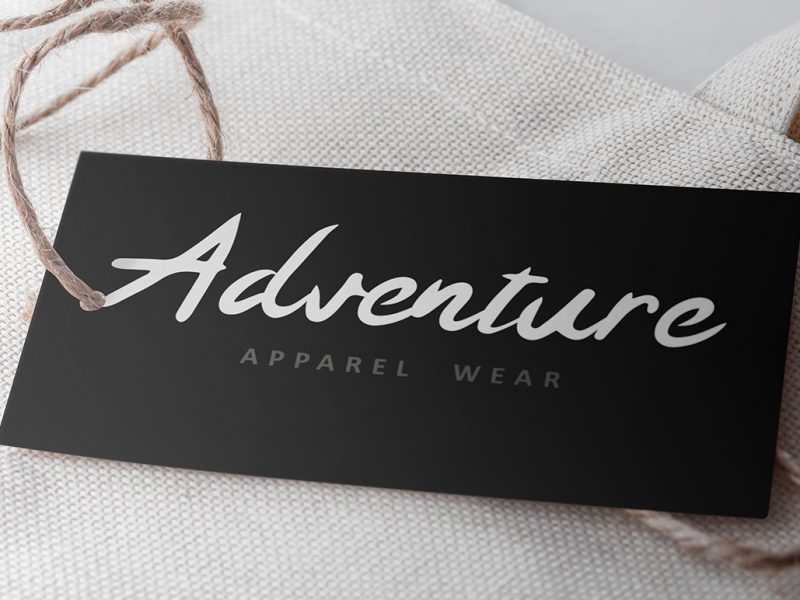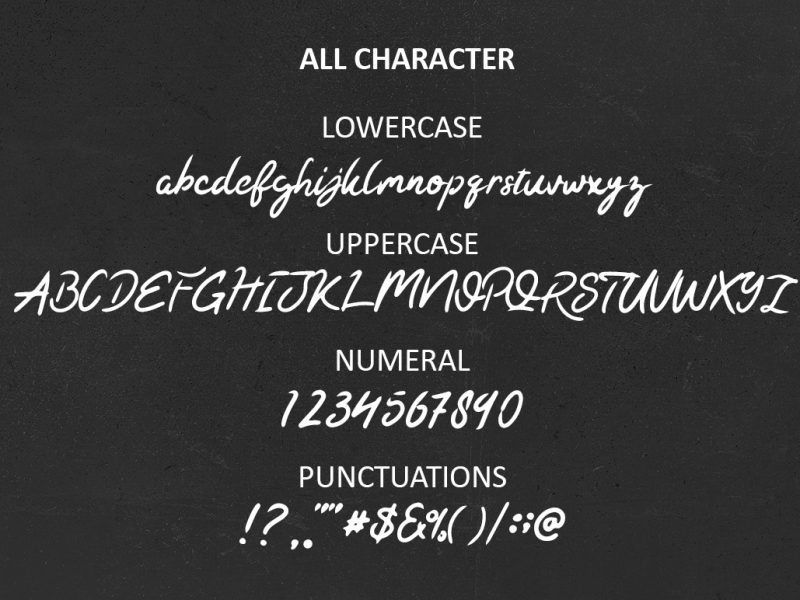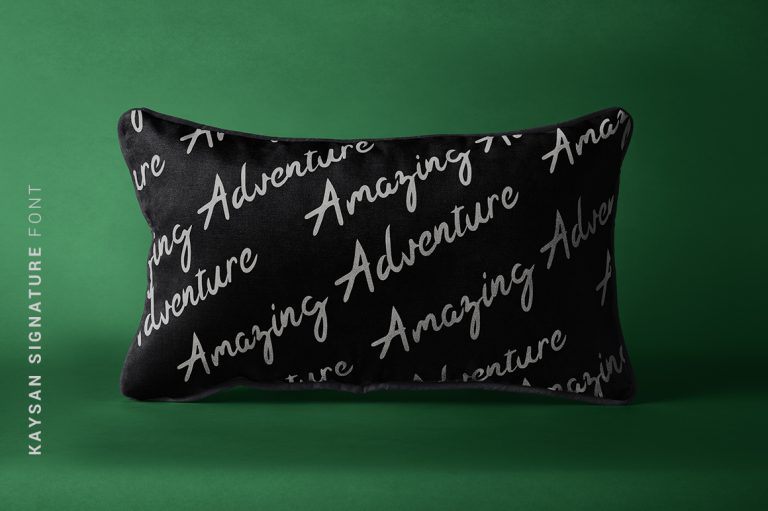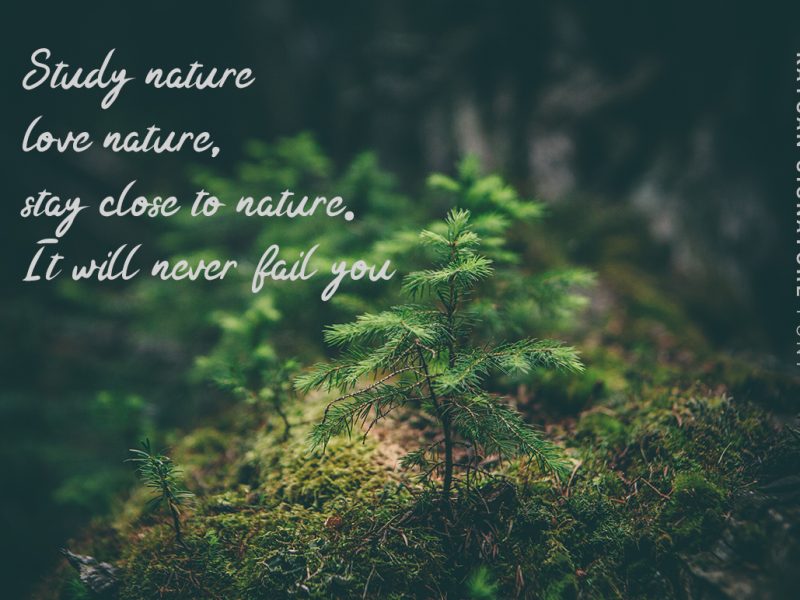
Kaysan Signature Font
Introducing Kaysan, a handwritten elegant script font! This bold, free-flowing and confident brush font is designed to be easily. Kaysan Signature is a font which you can use and enjoy again and again, for anything from promotional material and handwritten quotes, to product packaging, merchandise and branding projects.